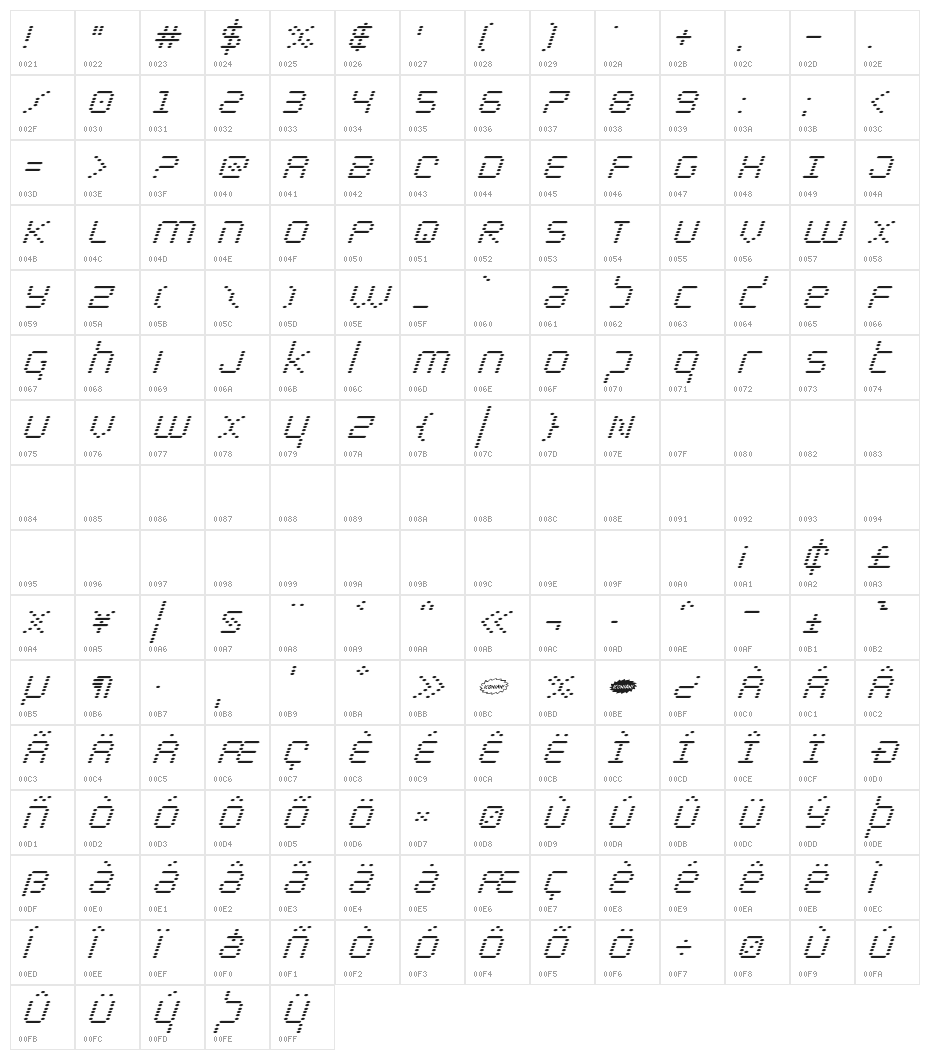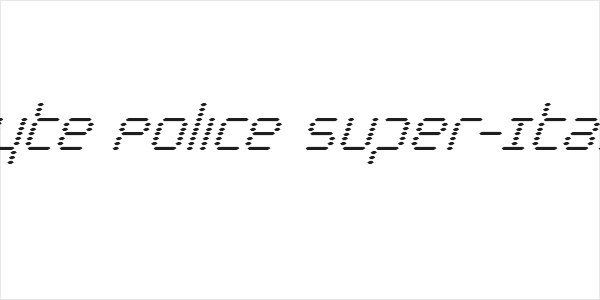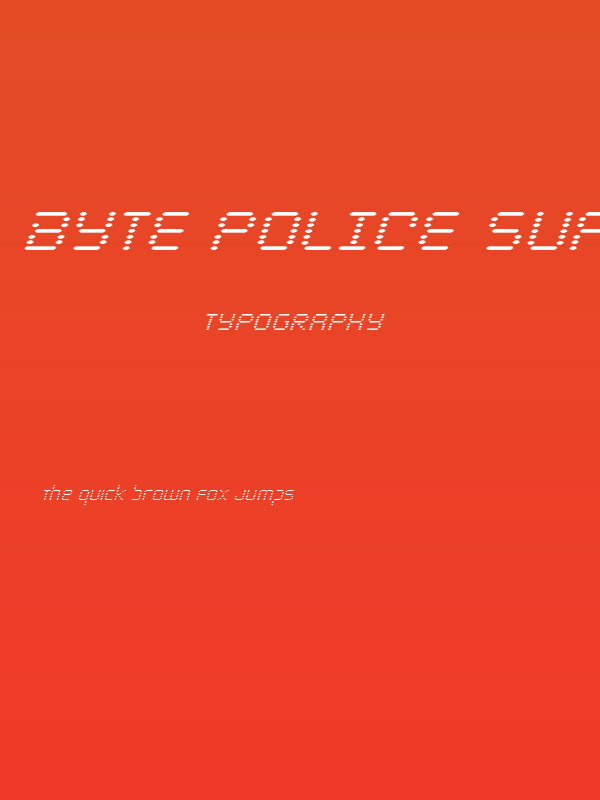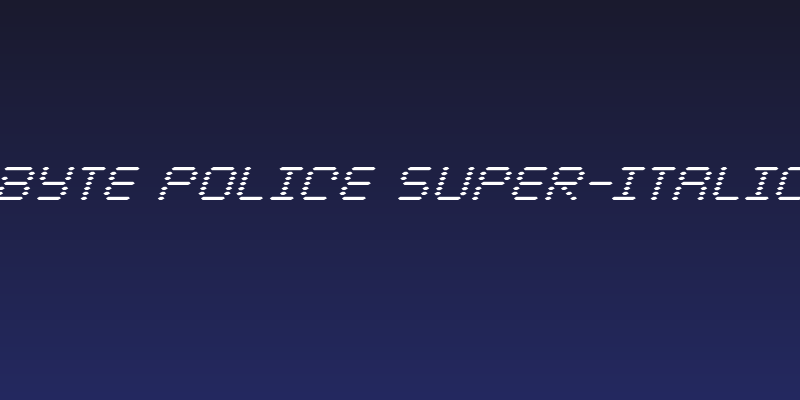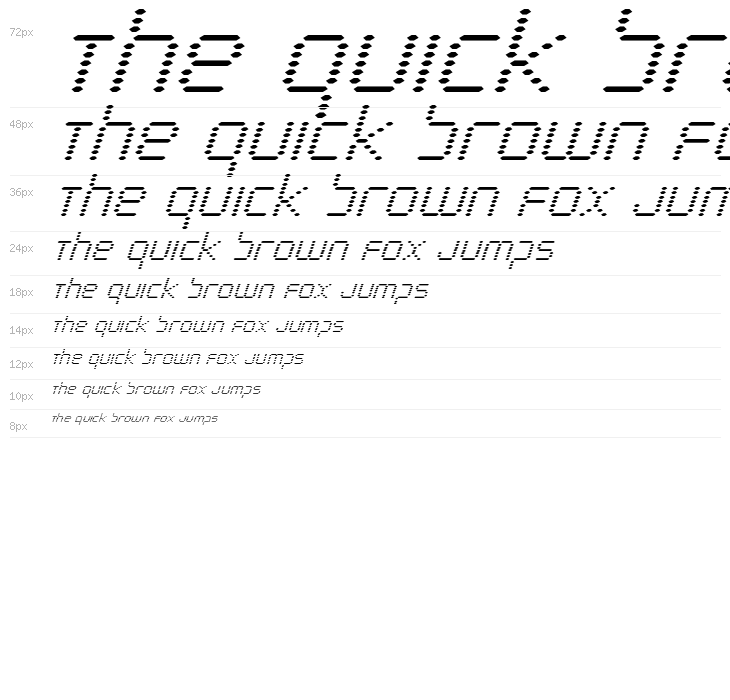
Byte Police Super-Italic Font
Byte Police Super-Italic Description
This font features a unique dotted pattern that creates each character, giving it a digital and futuristic appearance. The characters are italicized, adding a sense of motion and dynamism. The dots are evenly spaced, forming clear and legible letters and numbers. This style is reminiscent of digital displays or LED screens, making it ideal for tech-related projects. The font includes a full set of uppercase and lowercase letters, numbers, and a variety of special characters, ensuring versatility in design applications.